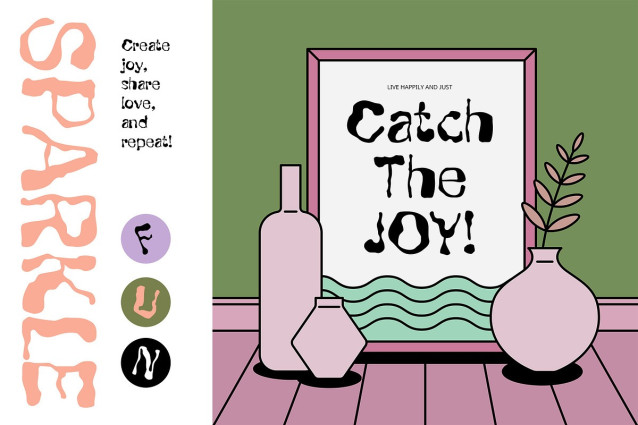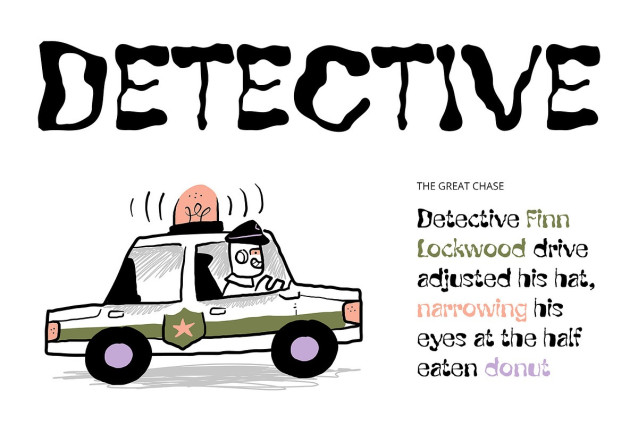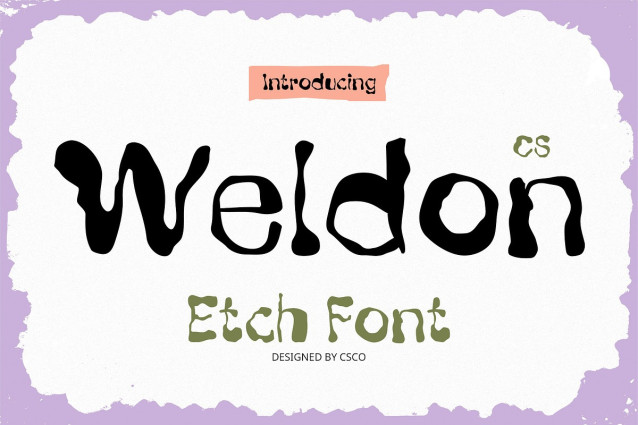
CS Weldon Font
CS Weldon Font is a display font with a distinctive etchy style, characterized by its rough, sketch-like lines that feel organic and full of personality. Each letter appears as if drawn by hand, resembling pencil or ink strokes, giving the font a raw, artistic quality that stands apart from traditional digital typefaces.
Imperfect Beauty for Unique Visual Impact With its irregular textures and expressive linework, CS Weldon embraces the beauty of imperfection. The font carries a natural, unrefined charm that adds emotional depth and individuality to any design. Its etched quality provides a dynamic and textured look, perfect for visual projects that seek to make a bold, imaginative statement.
Perfect for Artistic, Handmade, or Fantasy-Themed Designs .Its playful, handcrafted style evokes a sense of wonder and creativity, ideal for storytelling, fantasy visuals, and any project that celebrates imagination and originality.
A Font That Feels Like a Sketchbook CS Weldon transforms your typography into an illustration—each word feels alive, authentic, and spontaneous. It’s a font that speaks directly to the viewer’s sense of curiosity and emotion, making it an excellent choice for designers who want to add a personal and magical atmosphere to their work.